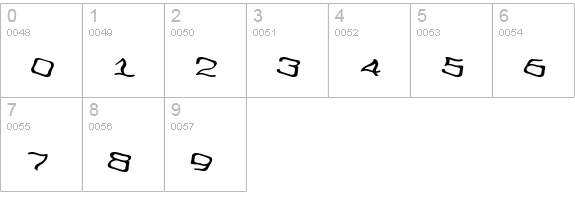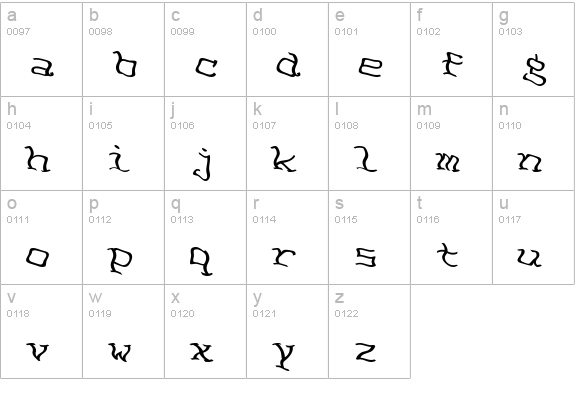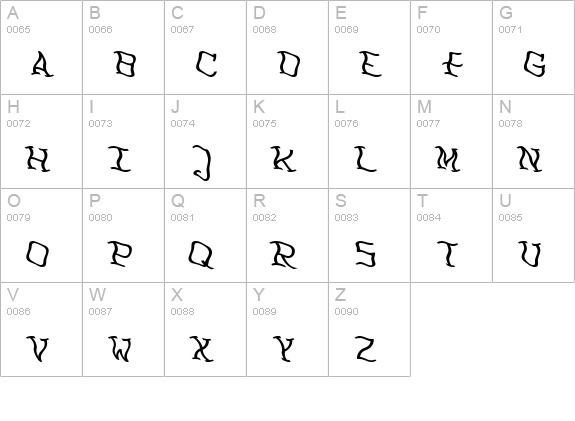
FeggoliteDancing Italic is a distinctive, italic variant in the FeggoliteDancing typeface family \xE2\x80\x94 well suited to design and typography projects.
FeggoliteDancing Italic is a whimsical and elegant font that exudes a sense of grace and movement. With its delicate strokes and flowing curves, this font is perfect for adding a touch of sophistication to any design project. Whether you're creating invitations, branding materials, or social media graphics, FeggoliteDancing Italic will elevate your work to the next level. The best part? FeggoliteDancing Italic is completely free to download at FontsMarket.com. You can add this stunning font to your collection without any cost, making it accessible to everyone looking to enhance their designs with a touch of finesse. Don't miss out on this opportunity to elevate your projects with the beauty of FeggoliteDancing Italic - download it today and let your creativity soar!